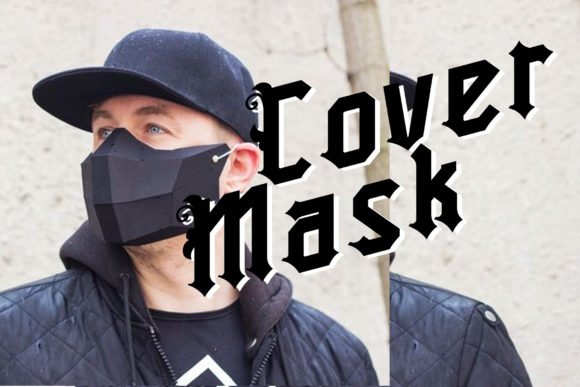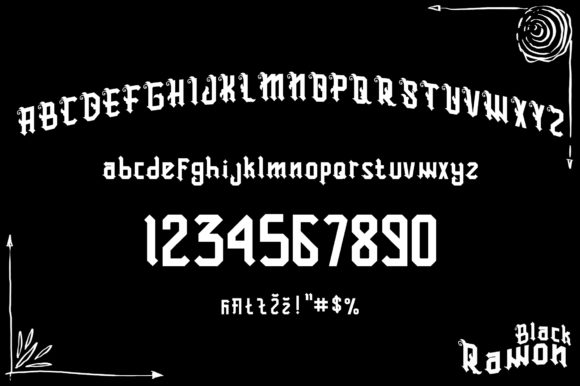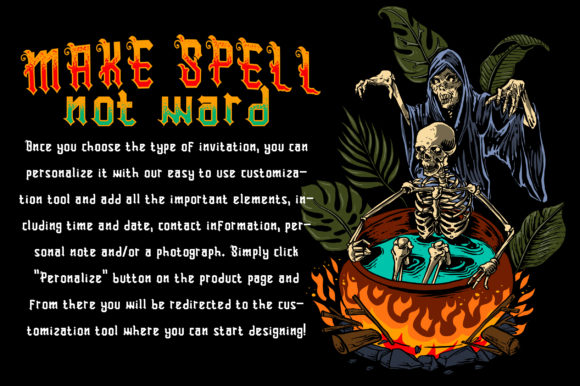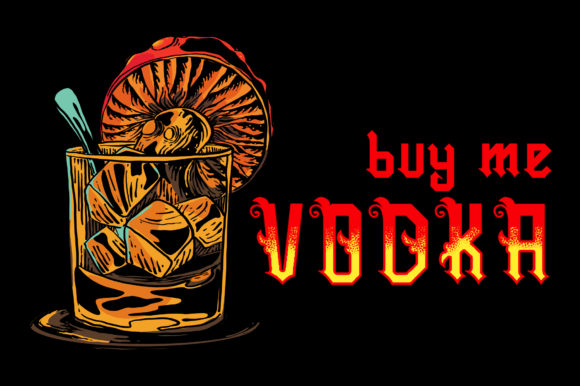
Black Rawon Font – Free Download
Introduction to Black Rawon Font
Black Rawon is a bold and authentic blackletter font.
It is ideal for any design that needs a strong, assertive touch .
Key Features of Black Rawon Font
Why Choose Black Rawon Font?
Black Rawon Font offers exceptional quality and versatility, making it a valuable addition to your design toolkit. Whether you’re creating for personal projects or commercial use, Black Rawon Font delivers professional results.